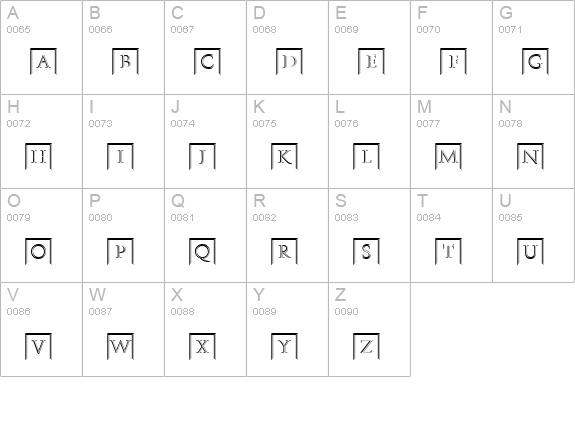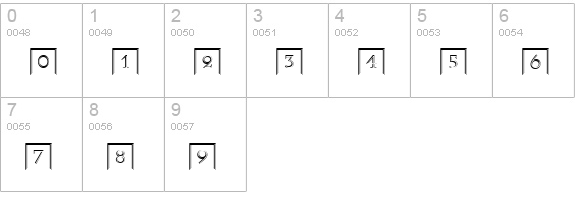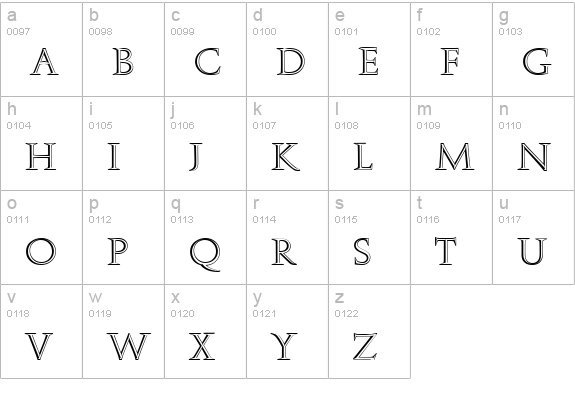
DisplayNo1URWIniD Font Details
DisplayNo1URWIniD is a unique and eye-catching font that is perfect for making a bold statement in your designs. This font features strong, angular lines and a modern aesthetic that is sure to grab attention. Whether you are creating posters, logos, or social media graphics, DisplayNo1URWIniD will help your work stand out from the crowd. The best part about DisplayNo1URWIniD is that it is completely free to download at FontsMarket.com. This means you can easily add this distinctive font to your collection without any cost. Don't miss out on the opportunity to enhance your designs with DisplayNo1URWIniD and make a lasting impression on your audience.